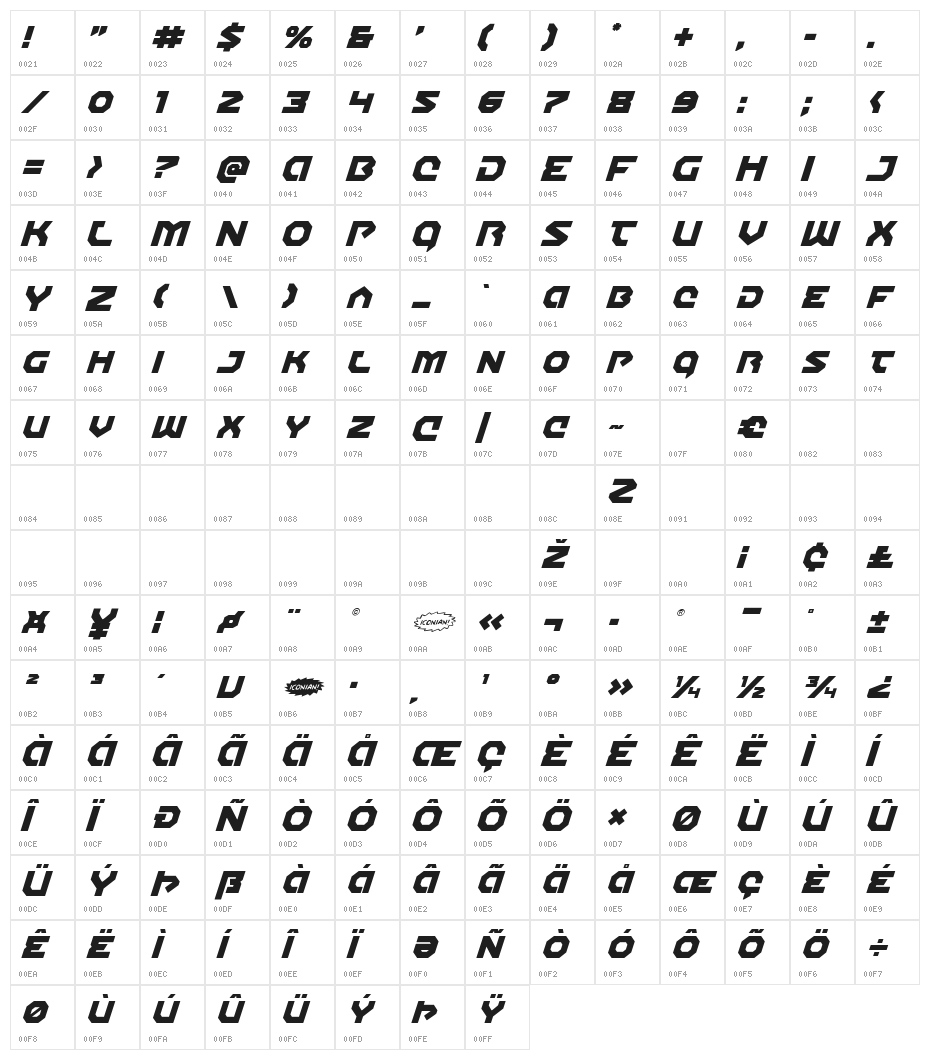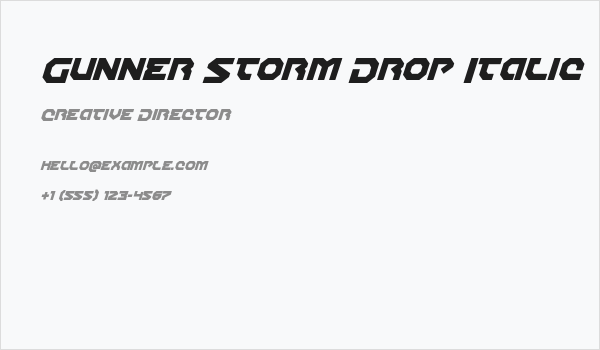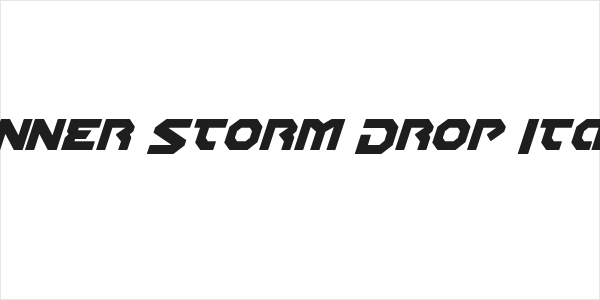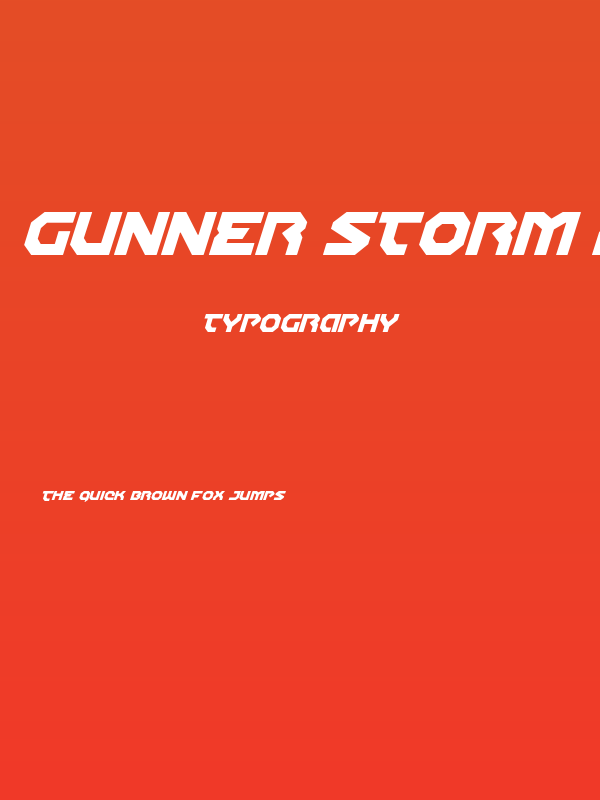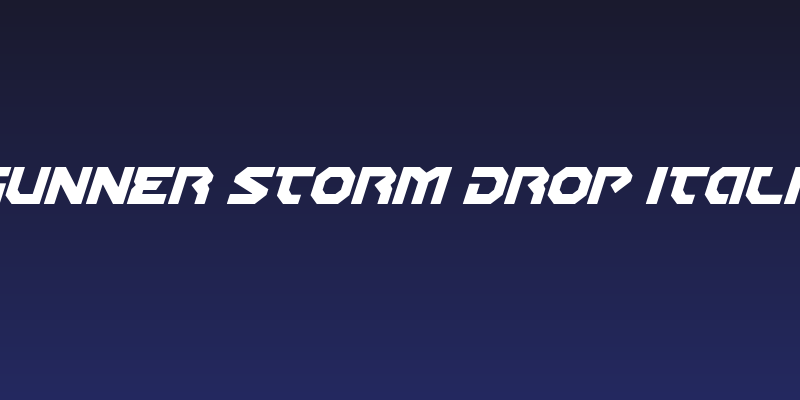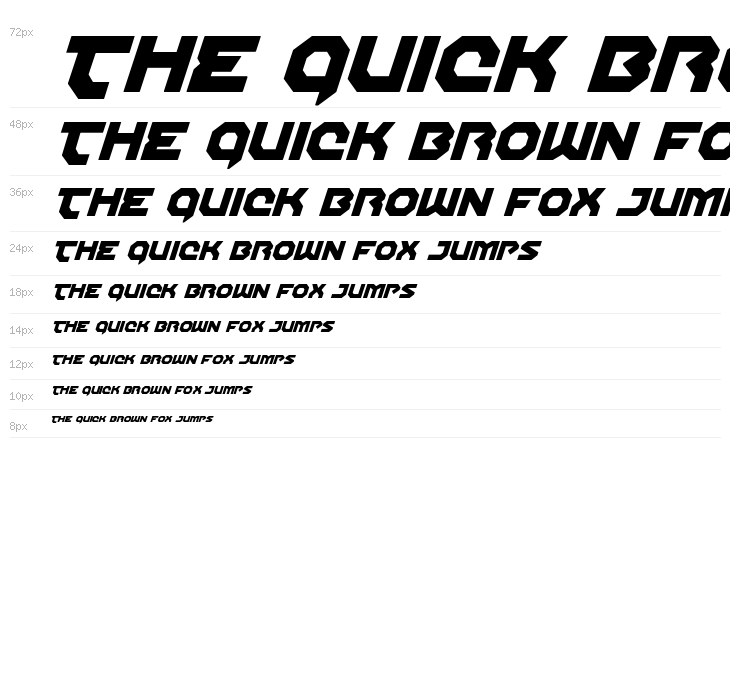
Gunner Storm Drop Italic Font
Gunner Storm Drop Italic Description
This font features a bold, angular design with a futuristic and dynamic appearance. The characters are sharply cut with a distinct slant, giving them a sense of motion and energy. The uppercase and lowercase letters maintain a consistent style, with strong geometric shapes and sharp edges. The numerals and special characters follow the same aesthetic, ensuring uniformity across all glyphs. The font's boldness and italicized form make it stand out, ideal for attention-grabbing designs.
Proposed ProjectsIdeal for sci-fi themed projects, video game titles, posters, and branding that requires a modern and edgy look.